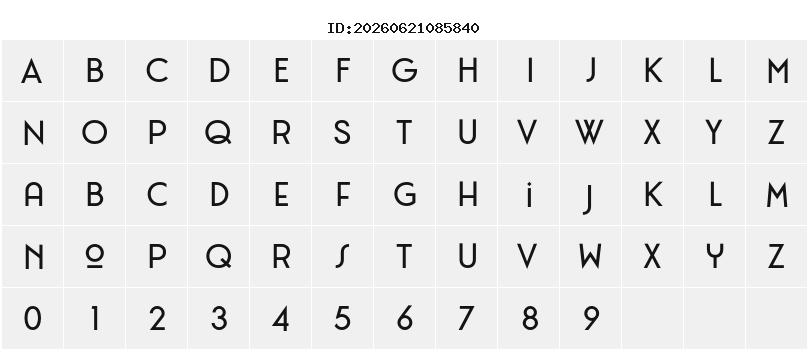
• Font Name: Catallina
• Full Font Name: Catallina-Regular
• Designer: Mariano Diez
• Manufacturer: Mariano Diez
About Catallina.otf
Catallina.otf is a modern, elegant sans-serif font designed for ultimate readability and visual harmony. Perfect for branding, headlines, web design, and print materials.